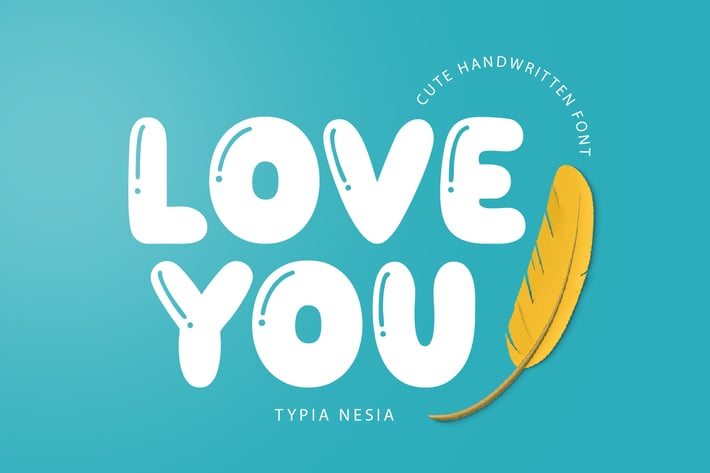
Love You - Funny Cute Balloon font
Love You - Funny Cute Balloon font - Kid Child Cartoon Display Font
Love you balloon font is suitable for any design needs : kid game logo, snack, kindergarten branding, food & beverage packaging, child kid design, modern advertising design, birthday party, cartoon, animation, kid book, toys branding, poster quote, book / cover Title, website / blog, card design and any hand-lettered needs.